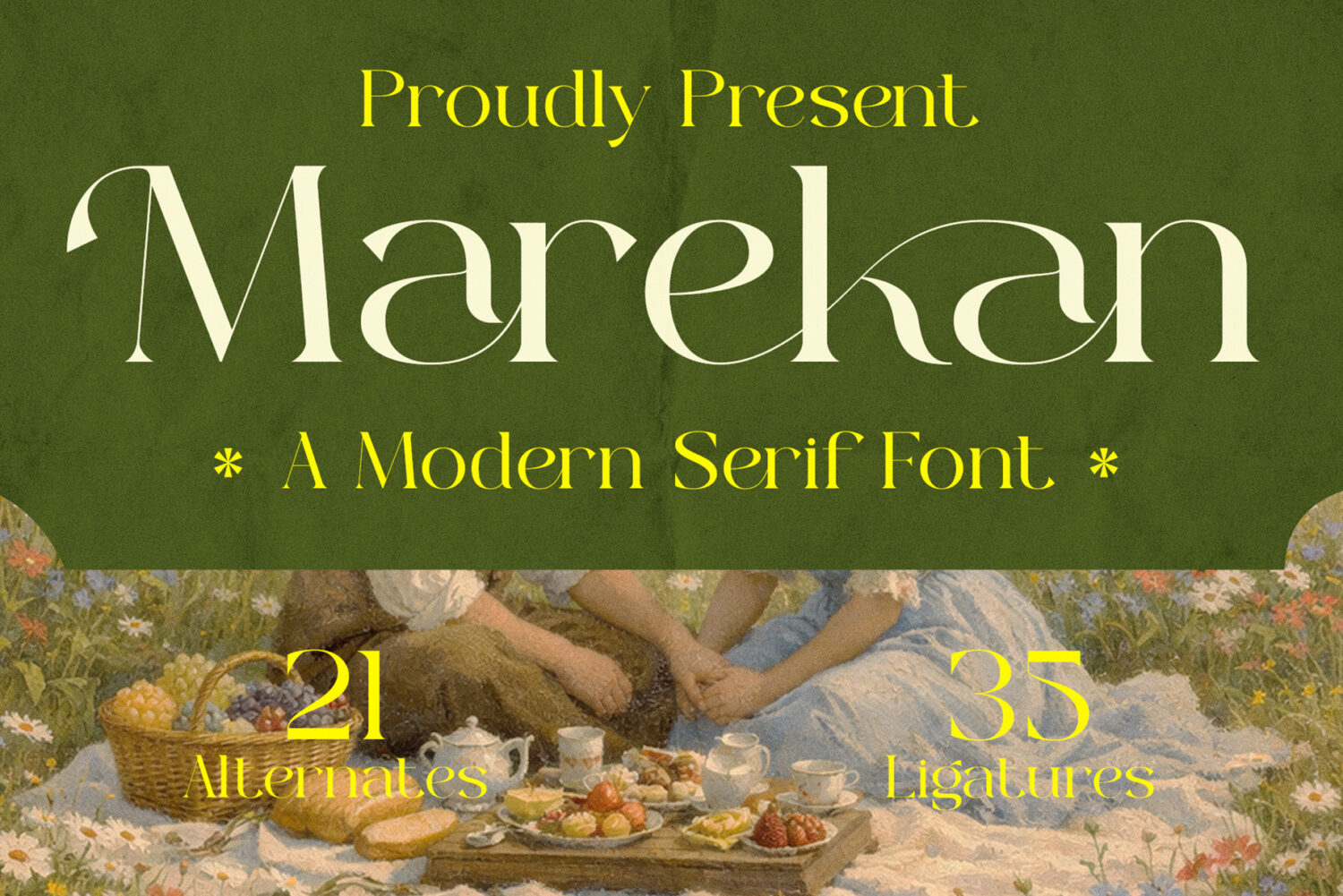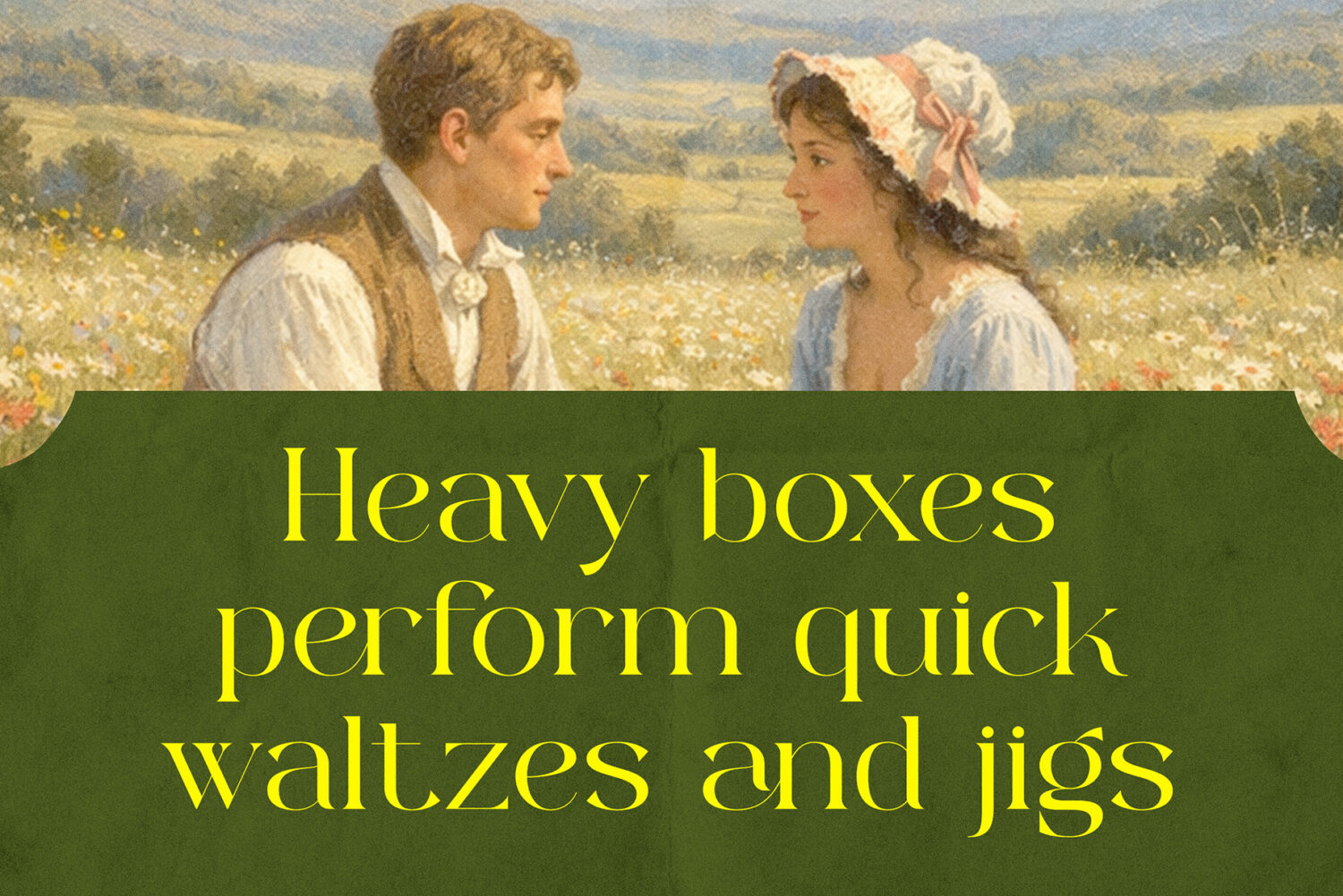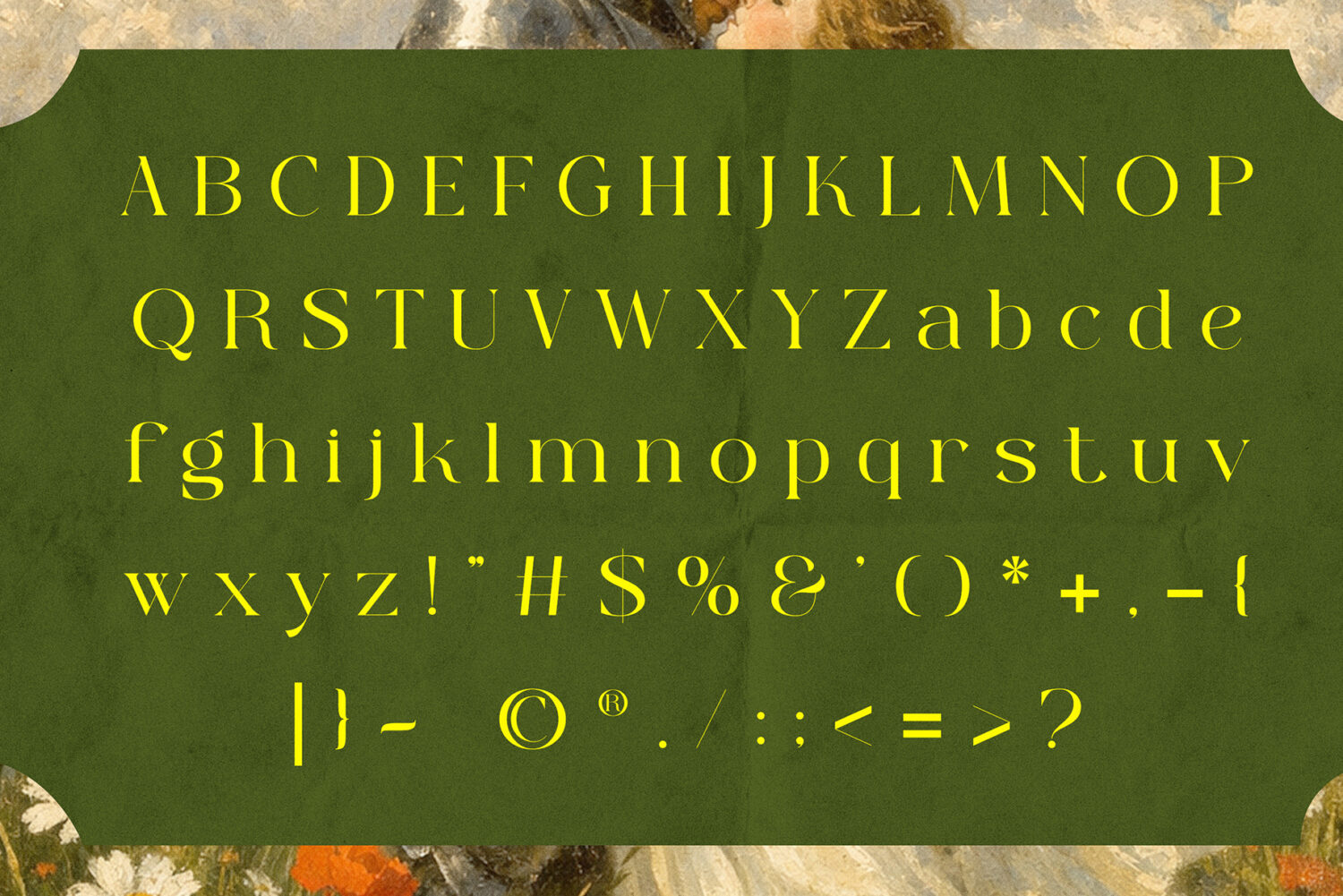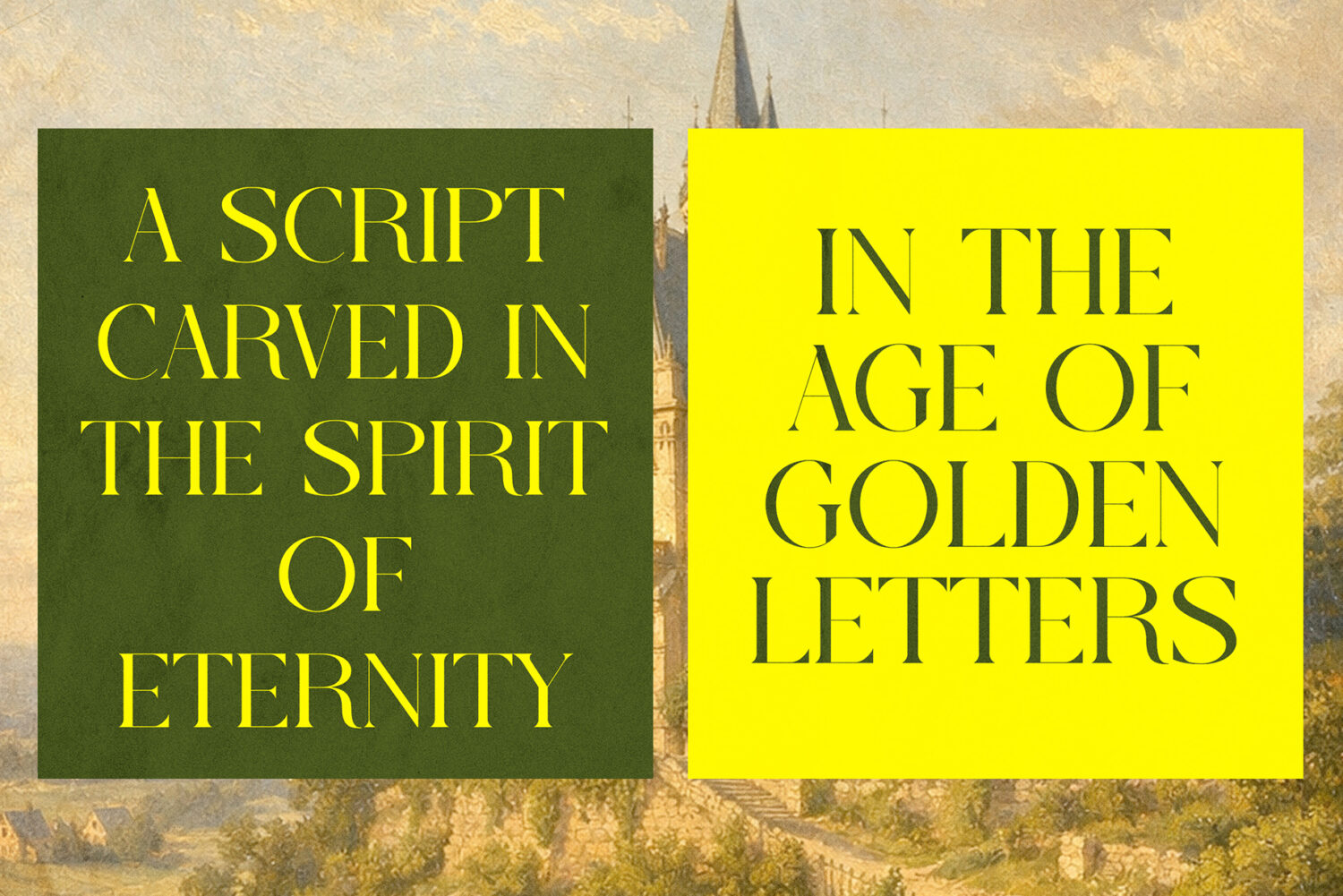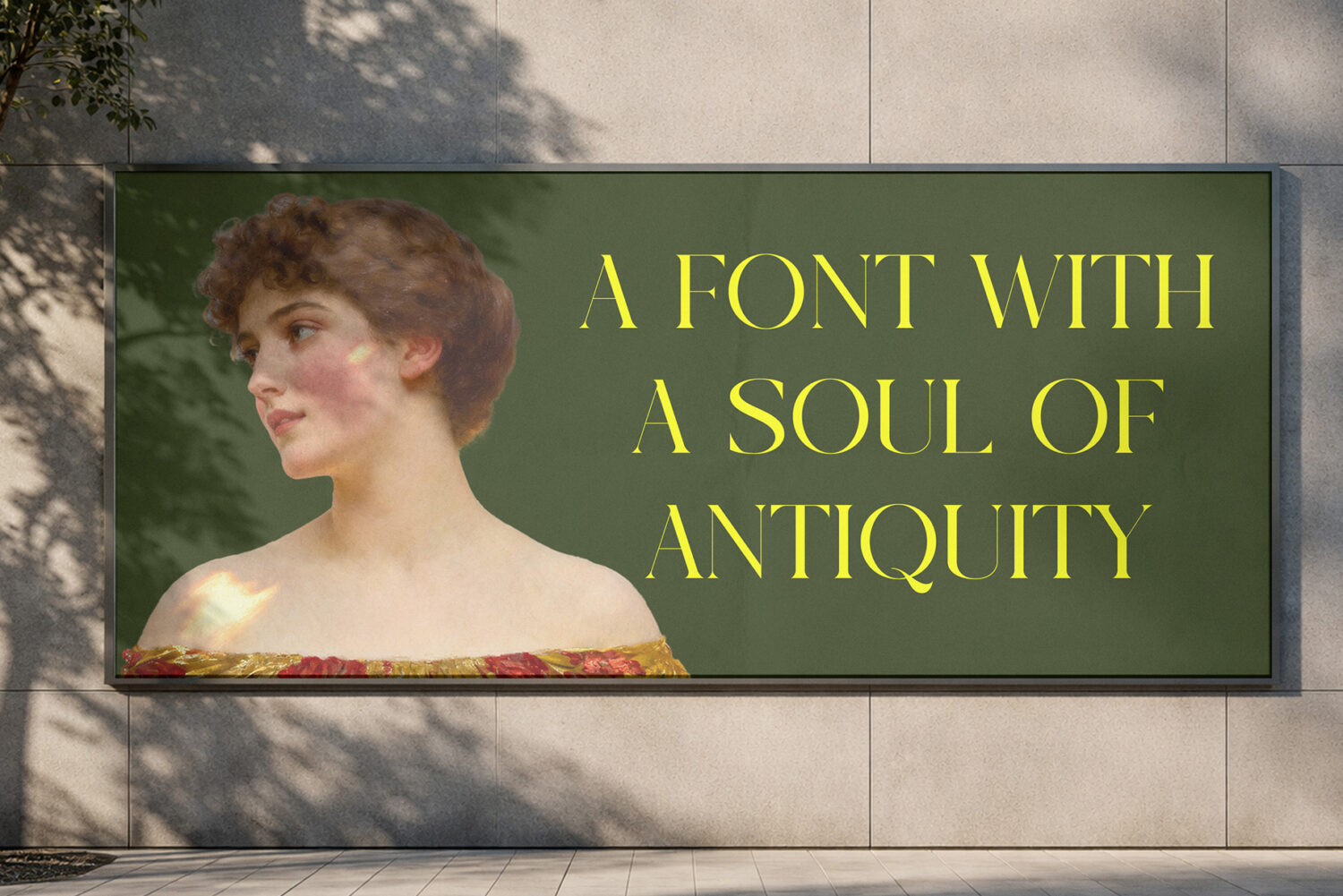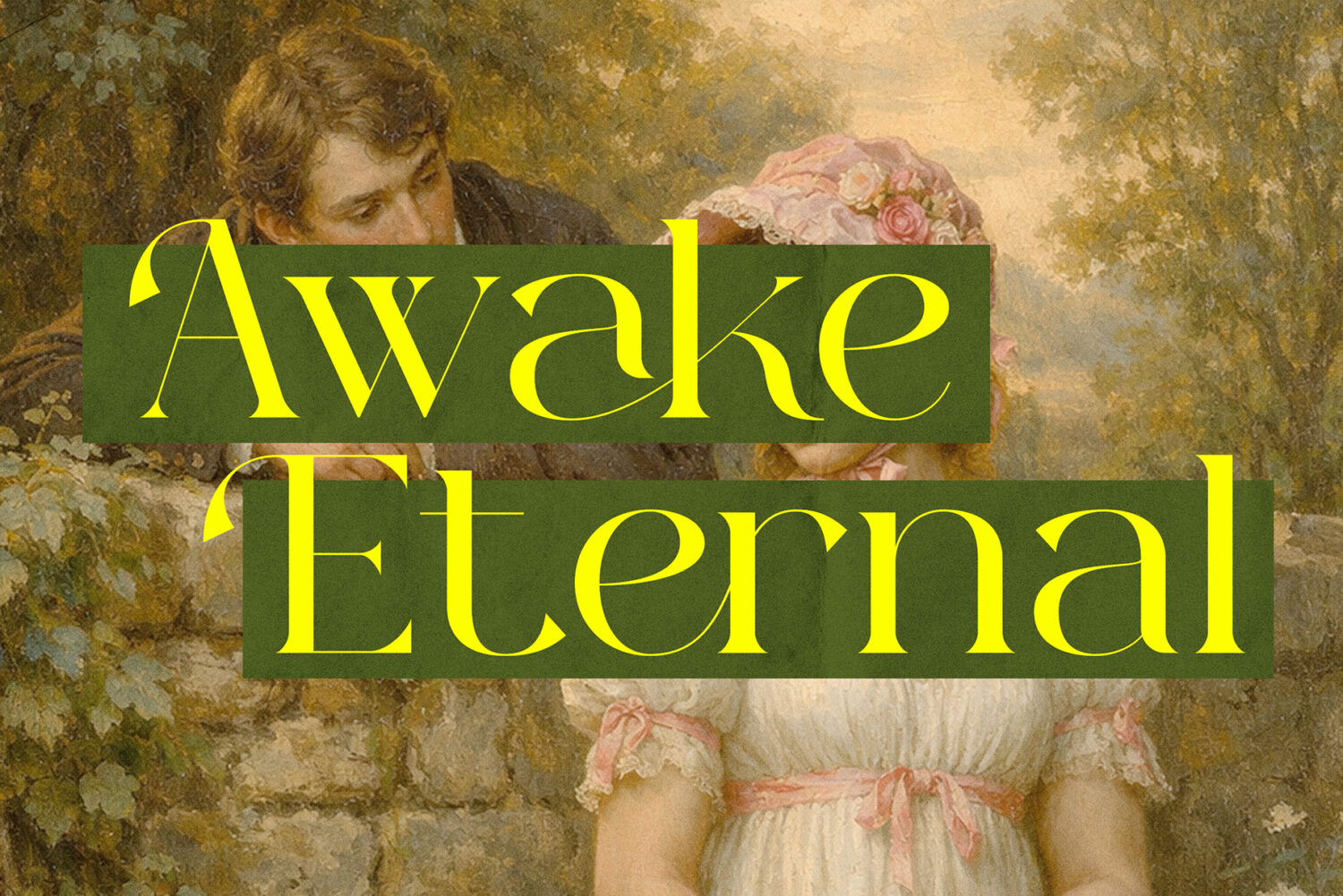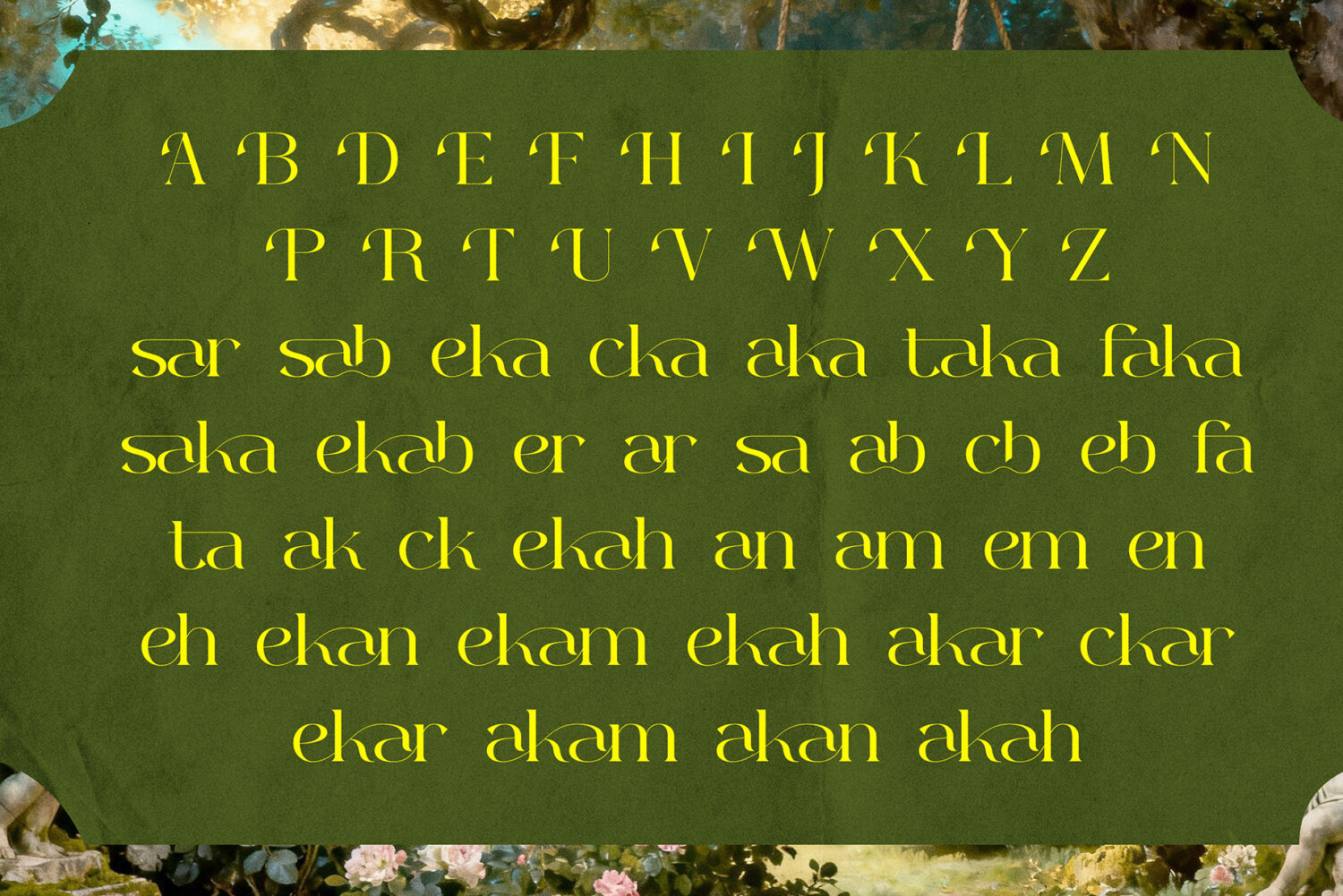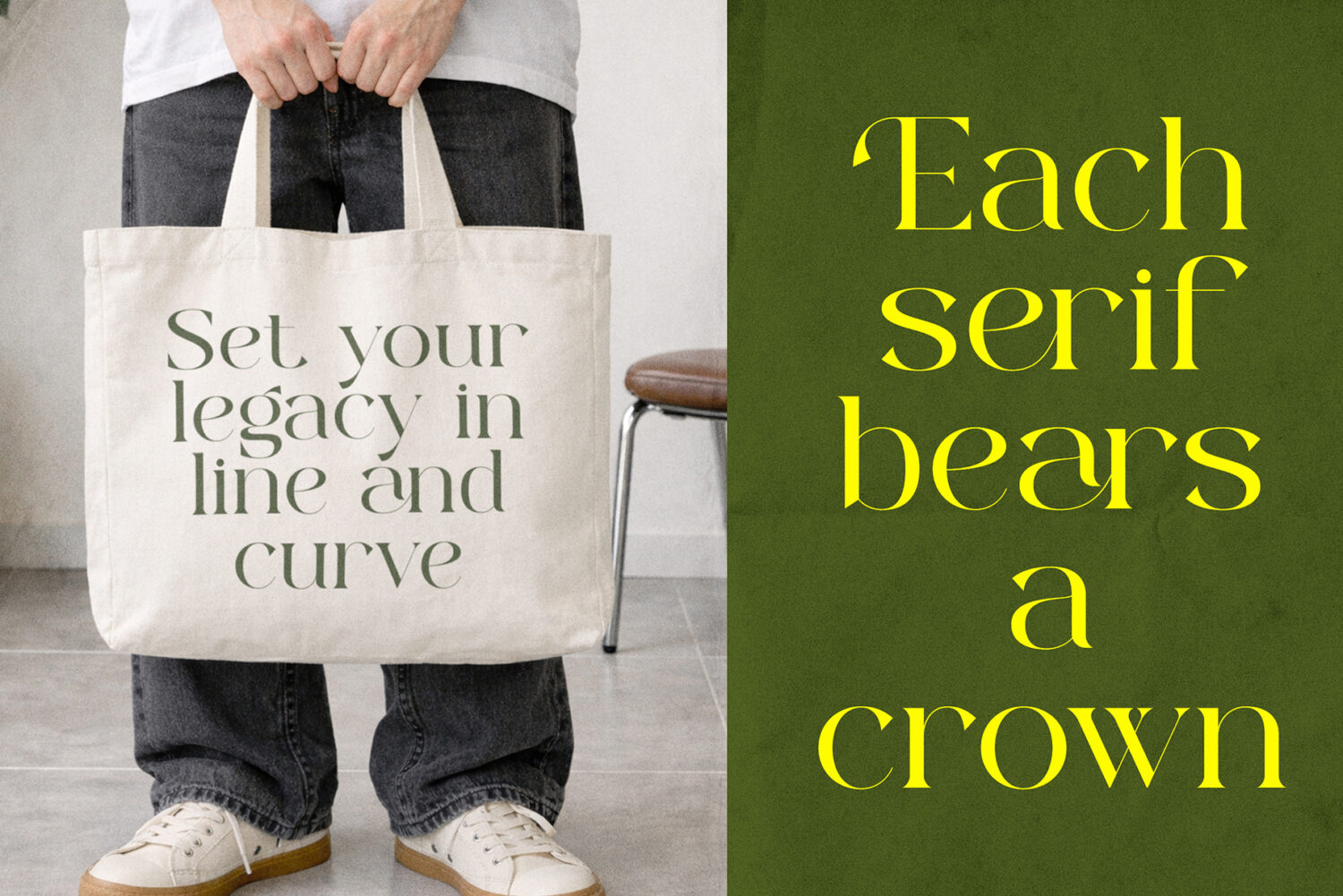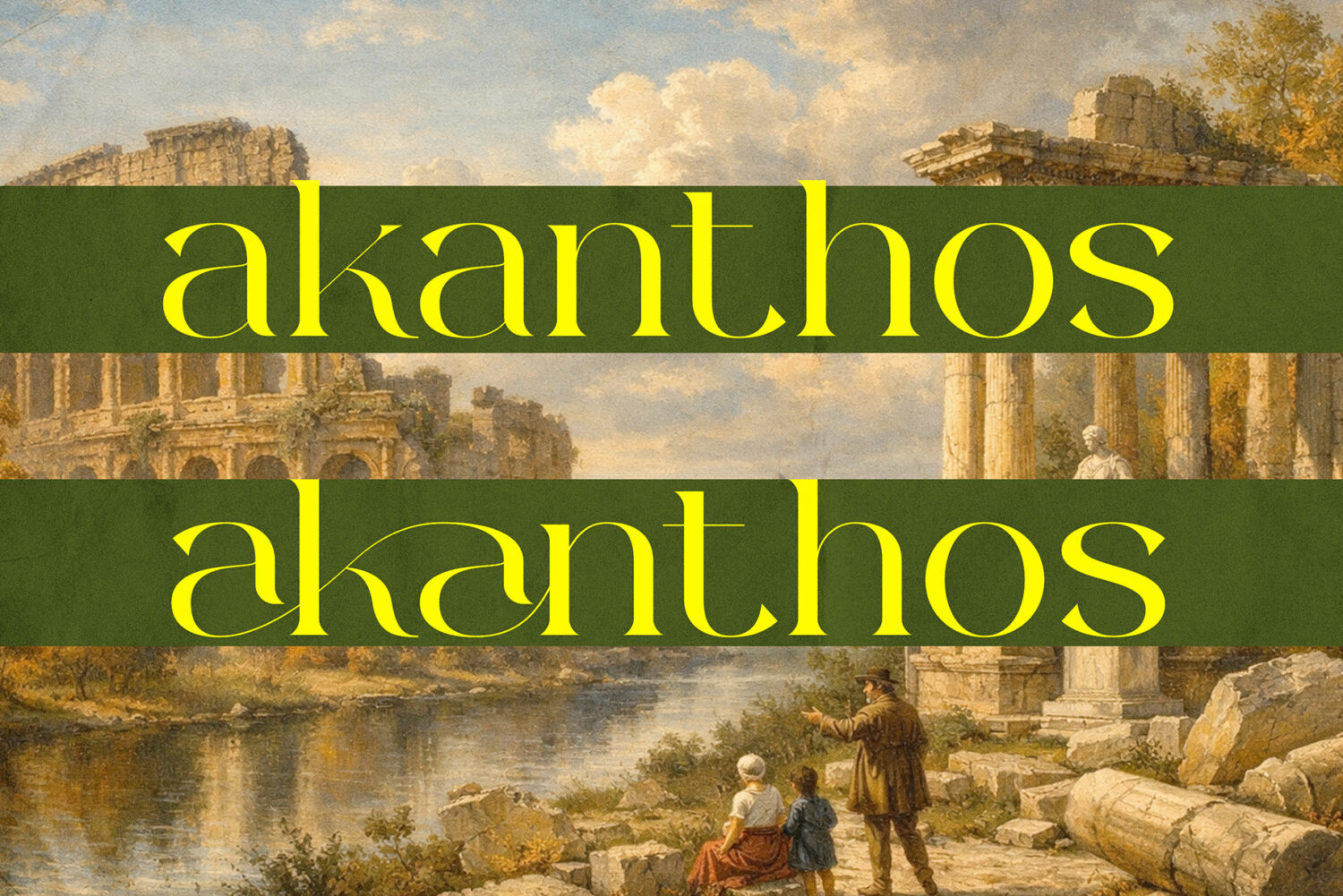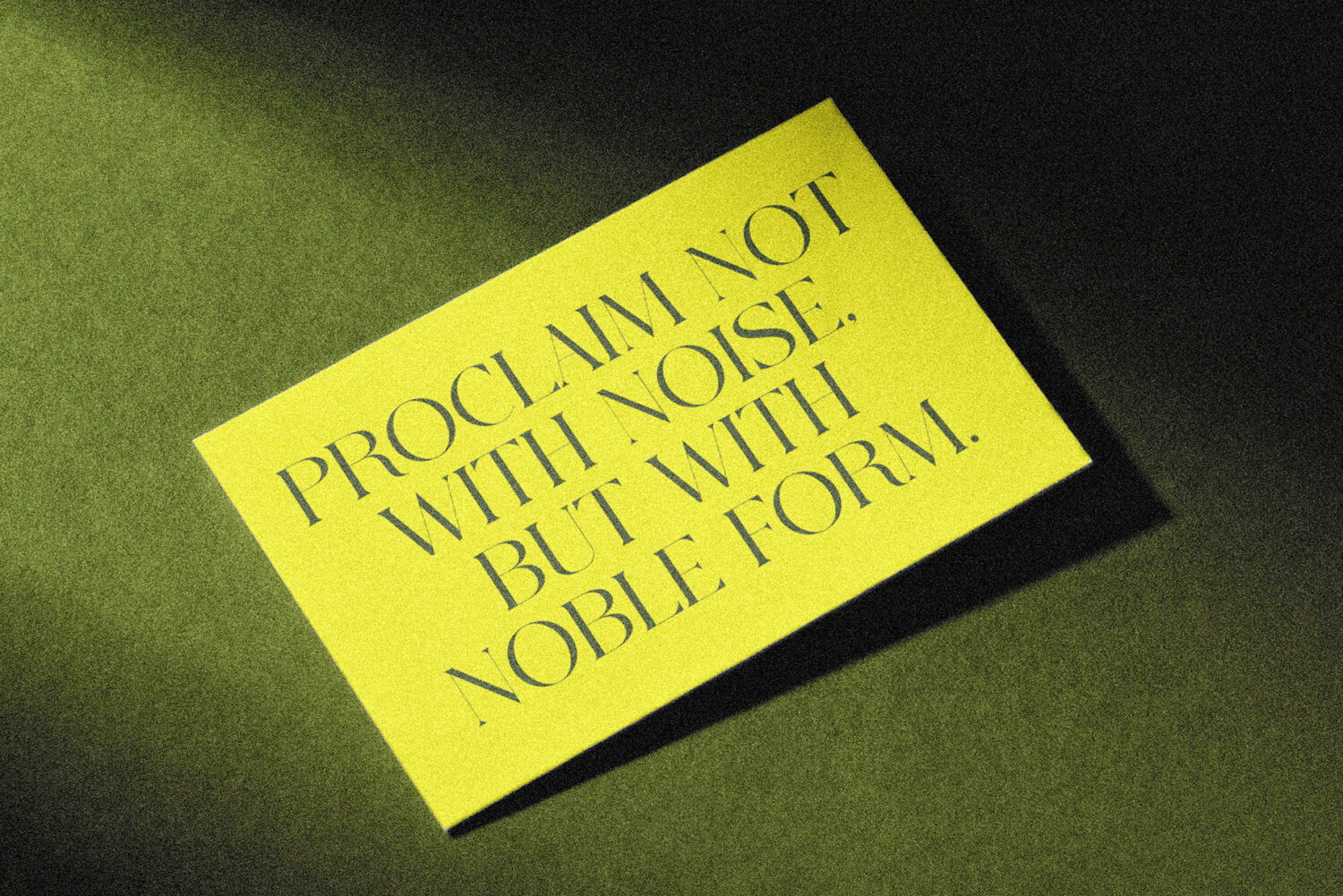
Introducing **Marekan** the elegant, beautiful, and modern Serif. With its modern and minimalist look, Marekan brings a luxurious, classy, and clean style to your projects such as websites, modern logos, brand identities, social media quotes, wedding stationery, magazines, and more!
Marekan features unique and classy capital letters A to Z and also comes with unique ligatures making Marekan a beautiful font that can be customized for various projects and jobs you want.
Marekan is perfect for: logos, brands, wedding invitations, business cards, greeting cards, posters, magazines, social media, agenda prints, and websites.